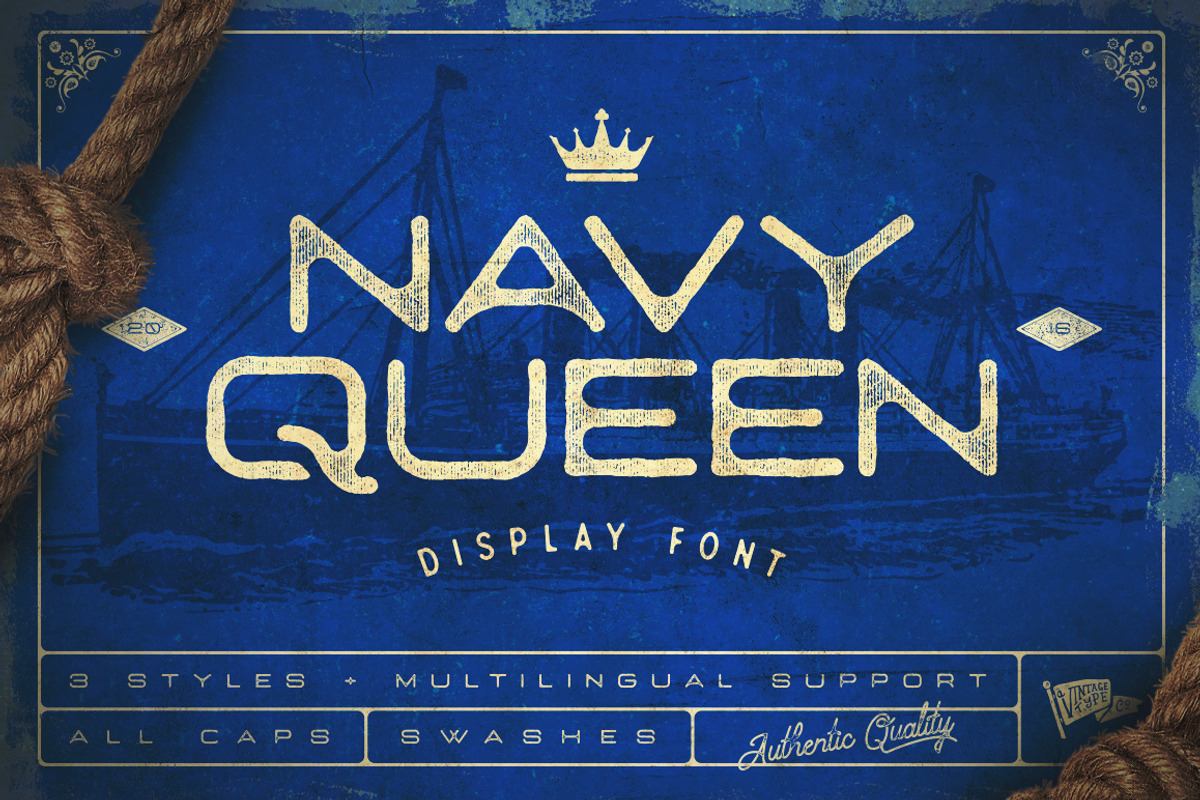
Navy Queen Display Font Free Download is a bold and sophisticated typeface designed to make a statement. With its clean lines and elegant structure, Navy Queen is perfect for headlines, logos, posters, and other display projects. This font brings a strong, modern feel while maintaining a touch of classic elegance. It’s ideal for any design that needs to stand out with style and clarity.